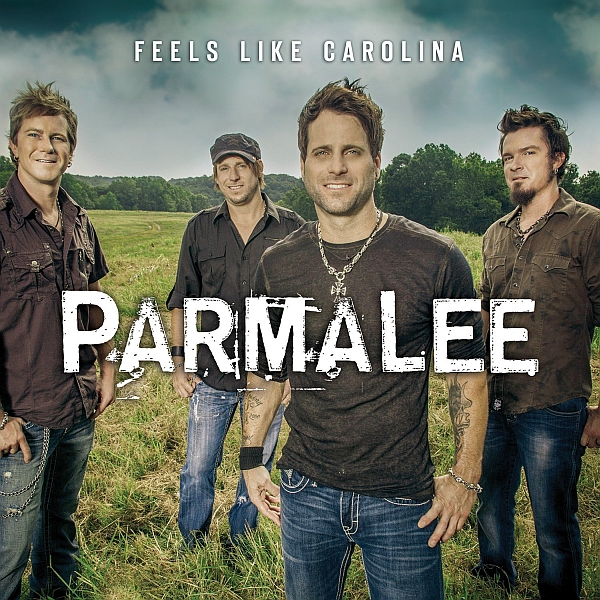
Feels Like Carolina Font
CountryFeels Like Carolina is the debut studio album by American country music artist Parmalee. It was released on October 8, 2013, by Stoney Creek Records.
The font used for the album title is probably Trade Gothic Bold Condensed and the band name likely uses a modified version of Trade Gothic Bold. Trade Gothic, a sans-serif typeface, was first designed by Jackson Burke in 1948. You can view more information about it here.